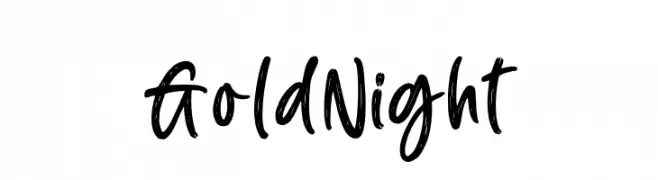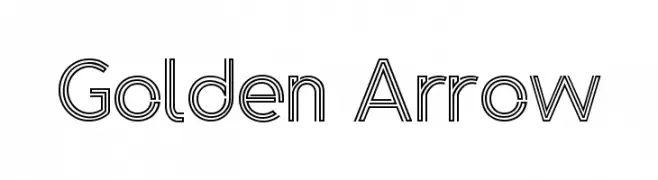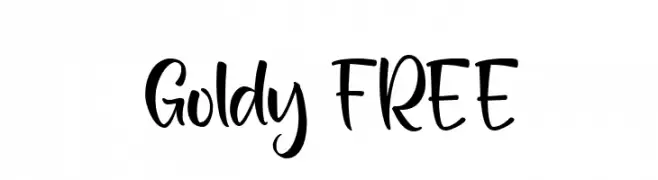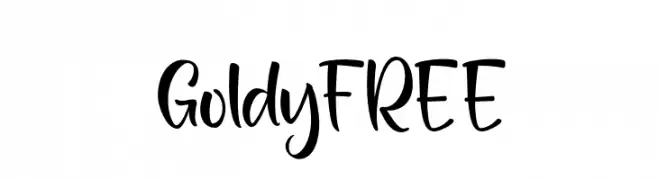
A bold, handwritten font with dynamic and expressive strokes.
A lively, expressive handwritten font with dynamic strokes.
A modern, outlined font with geometric and dimensional characteristics.
A playful, cursive script font with medium contrast and a whimsical style.
A lively and expressive script font with bold, flowing letterforms.
A bold, modern font with thick strokes and a strong presence.
A sleek, modern, and light italic font with smooth curves and ample spacing.
A bold, italic typeface with high contrast and a modern, dynamic style.
A modern, light sans-serif font with clean lines and excellent readability.
A bold, playful script font with smooth, flowing strokes.